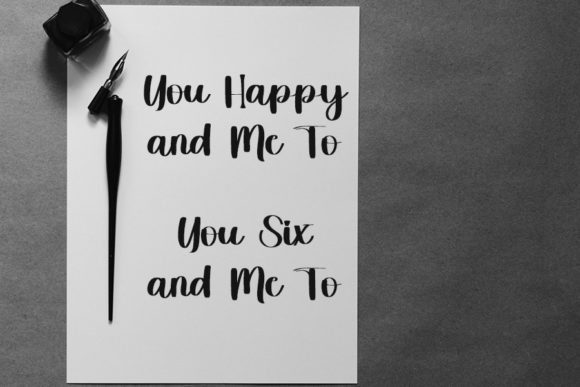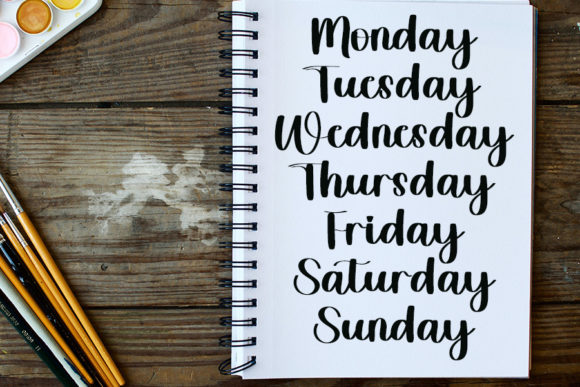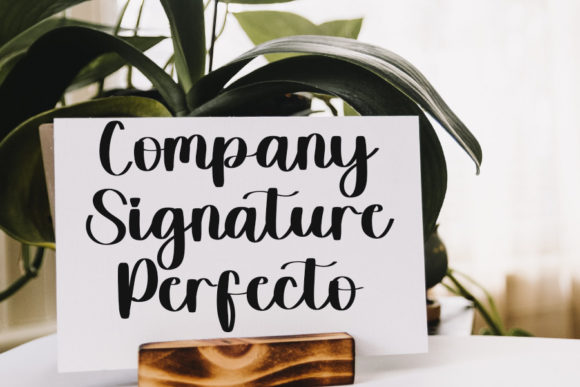
About Signature Christmas Font
Signature Christmas is a round lettered and chic script font. Fall for its ravishing style and use it to create gorgeous wedding invitations, beautiful stationary art, eye-catching social media posts, and much more!